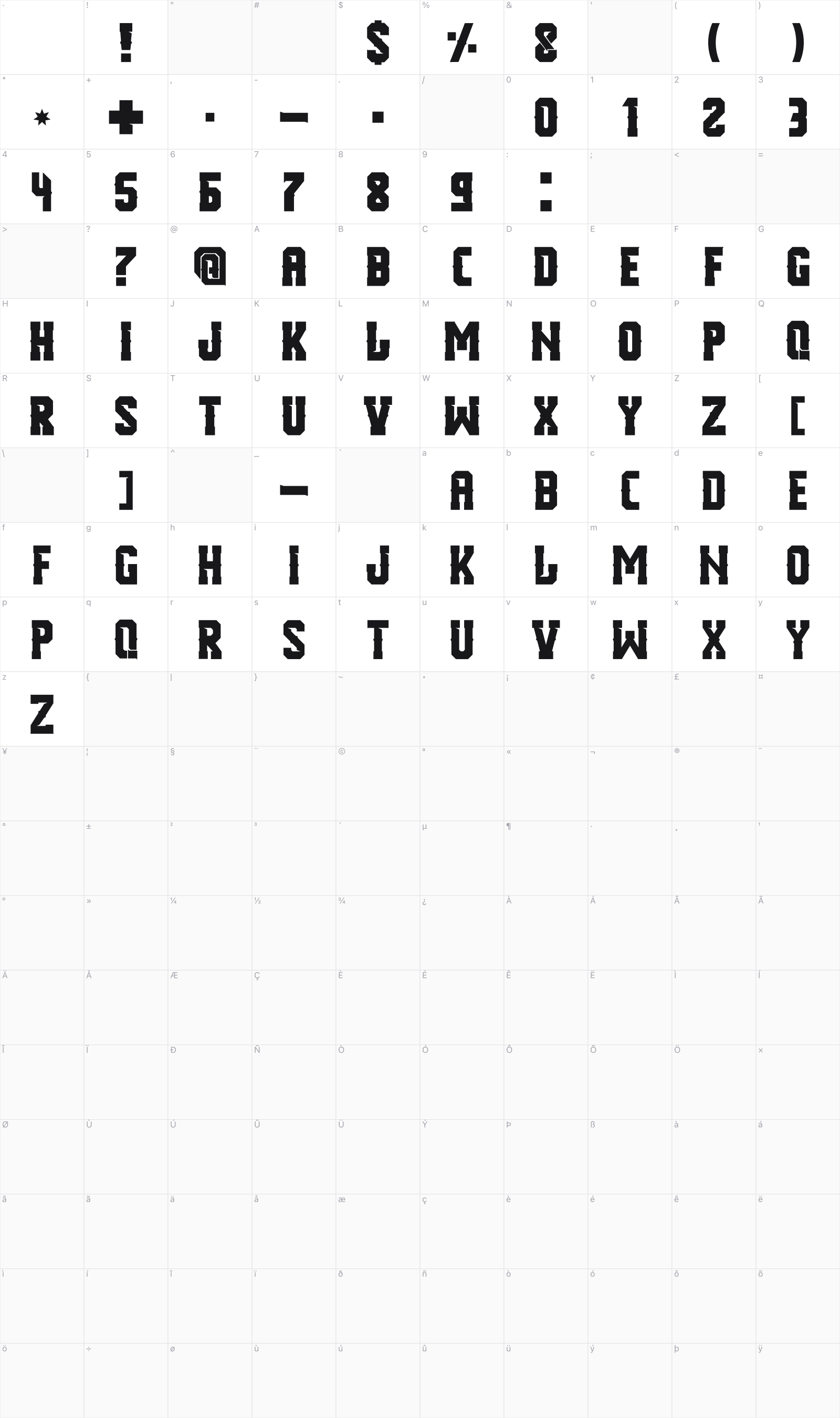
Part Two
Part Two is a heavy, condensed stencil face from Studio Stilt with blocky letterforms and a strong military bearing. The dense proportions and stencil cuts give it that utilitarian, stamped-on-a-crate quality, built for headlines, posters, and display work where you need something that reads as blunt and authoritative. It packs a lot of presence into tight spaces.